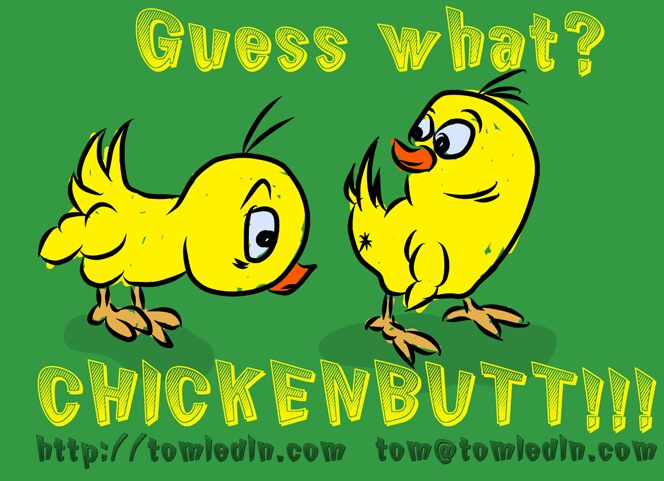
Chicken Butt
Chicken Butt by Tom Ledin is a free comic display font with tall, uneven letters and a lively hand-drawn slant. Diagonal hatching gives the inner shadows a scratchy, inked texture.
The crosshatched treatment lets the lettering become part of comic illustrations rather than a separate caption. It suits humor posters, snack packaging, children's event graphics, and playful merchandise. Comic covers are its clearest fit, especially when the lettering echoes the artwork's inked texture.